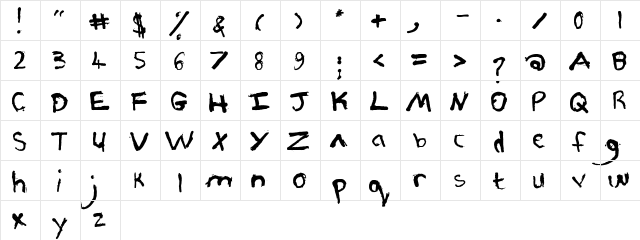
PJGrunge Regular
Design Context for PJGrunge Typeface
PJGrunge embraces imperfection — its rough, textured character adds raw authenticity to designs that want to feel lived-in and unconventional.
A strong fit for alternative music projects, graffiti-adjacent design, and anything that deliberately resists polish.
Pro Tip: Use PJGrunge at larger sizes where the texture and irregularity of each letterform can be clearly seen — it loses its character at small sizes.